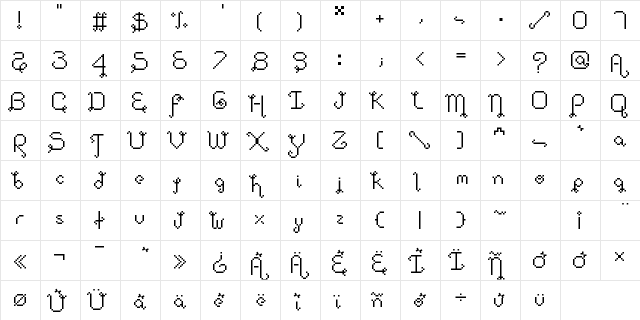
DollPixellowzz Medium
Design Context for DollPixellowzz Typeface
DollPixellowzz is rooted in pixel-grid construction, making it a natural fit for game UI, retro computing aesthetics, and digital nostalgia projects.
Well-suited to indie game interfaces, retro computing aesthetics, and pixel art-adjacent design work.
Pro Tip: Use DollPixellowzz at sizes that align with its pixel grid for the sharpest rendering — scaling to non-integer multiples can introduce unwanted blur.